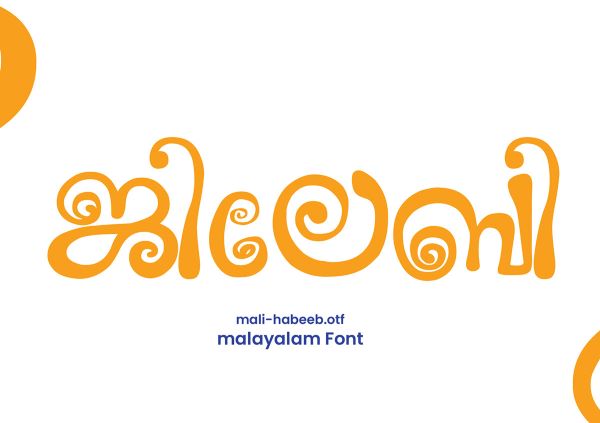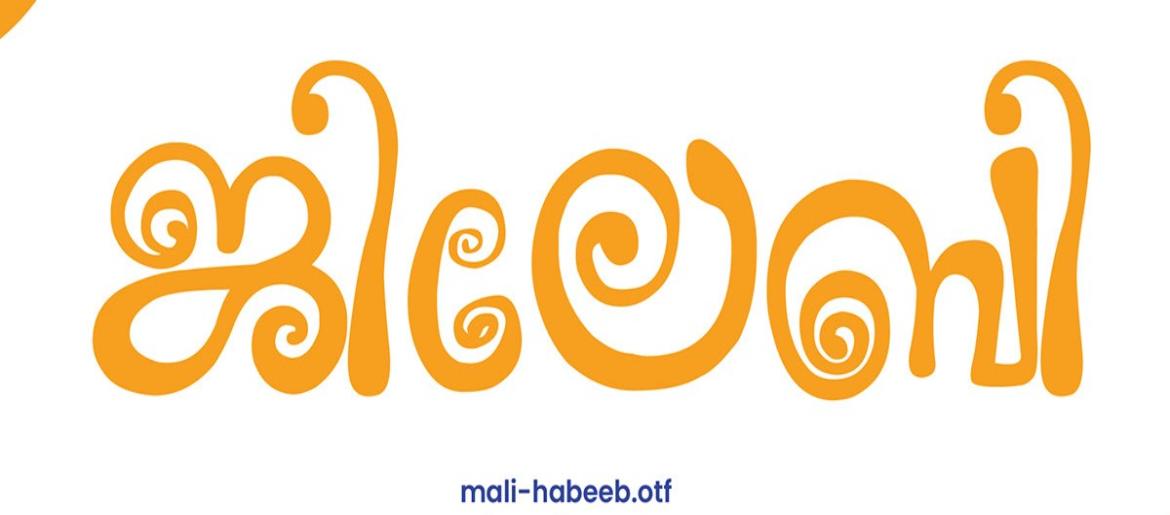
Mali Habeeb Malayalam Font
Mali Habeeb is a free Malayalam typeface crafted with careful attention to the flowing, curved nature of the script. Designed to feel both authentic and clean on screen, it serves the everyday typographic needs of Malayalam speakers and designers working with South Indian language content — from digital interfaces and editorial layouts to cultural projects and regional branding.